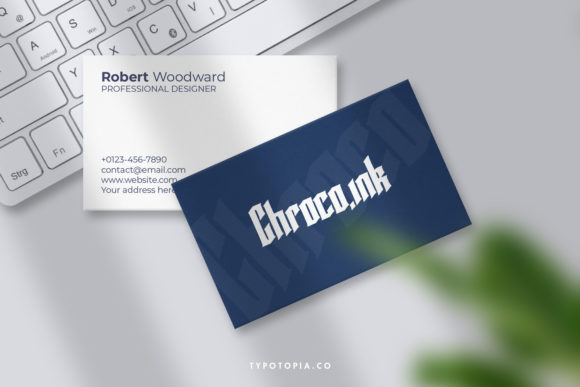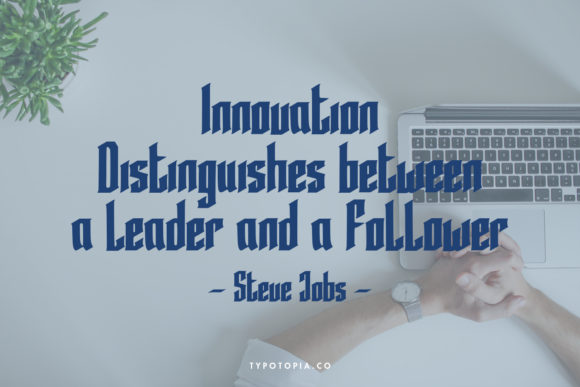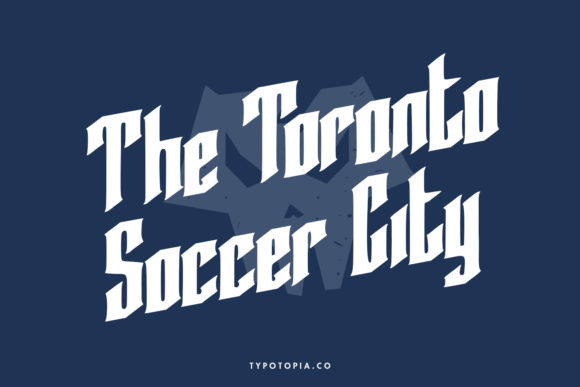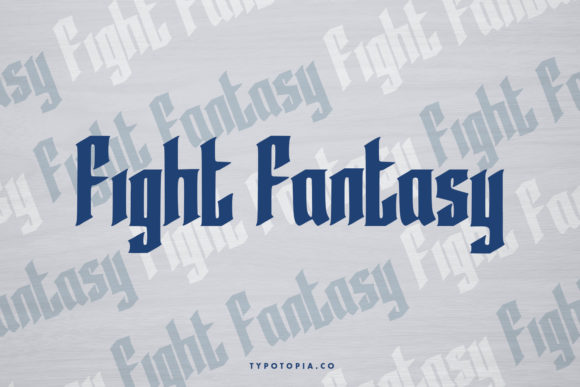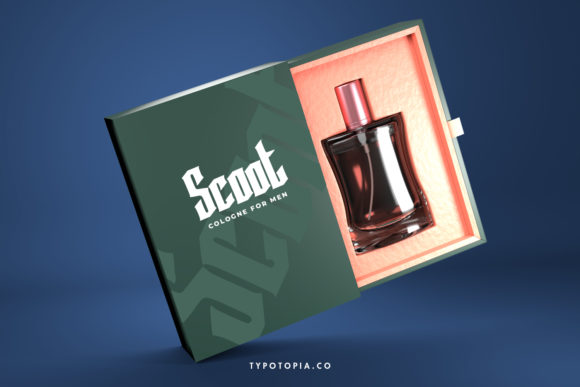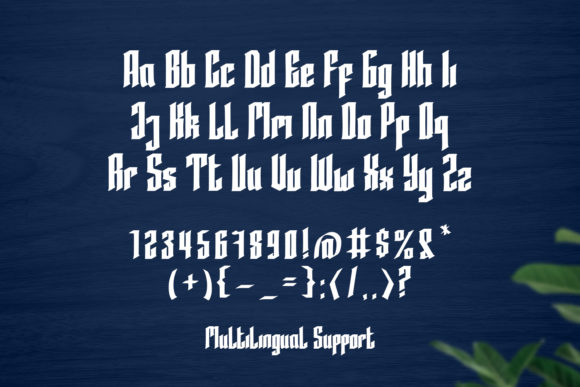
Unleash Your Creativity with Averoos Font
Have you ever been in the middle of a creative project, staring at a blank canvas, and suddenly a spark of inspiration hits you? The ideas start flowing, and you can’t wait to bring them to life. That’s exactly what happened to me when I first laid eyes on the Averoos Font. This bold and dramatic display font has the power to elevate your designs and make them truly stand out.
Averoos Font is more than just a font – it’s a statement piece. Designed to make a dramatic impact, it’s perfect for titles, headings, and any other element where you want to grab attention. Whether you’re a graphic designer, artist, or simply someone who loves to create, Averoos Font is a valuable addition to your toolkit. Its unique style and flair will add a touch of sophistication and elegance to your work, setting you apart from the crowd.
Averoos Font Key Features
- Font Family: Averoos is a unique, high-quality font family that includes multiple styles, such as Regular, Bold, Italic, and Bold Italic.
- Character Set: The font includes a comprehensive character set, including Latin, Cyrillic, and Greek alphabets, as well as various punctuation and symbol glyphs.
- Unique Characteristics: Averoos features a distinctive, hand-drawn aesthetic with a mix of geometric and organic elements, making it suitable for a wide range of design applications.
Averoos Font Review
I recently had the chance to work with the Averoos font, and I’m excited to share my honest review with you. Overall, I found Averoos to be a versatile and stylish font that can add a touch of sophistication to various design projects.
- ✨ Elegant and refined aesthetic: Averoos has a beautiful, modern feel that’s perfect for high-end branding, luxury products, or premium content.
- ✨ Wide range of styles: The font comes in multiple weights and styles, making it easy to find the perfect fit for your design needs.
- ✨ Excellent legibility: Averoos is highly legible, even at smaller font sizes, making it a great choice for body text and captions.
- ⚠️ Limited support for languages other than Latin: If you need to work with languages that use non-Latin scripts, you may find Averoos lacking in this regard.
- ⚠️ Not ideal for display-heavy designs: While Averoos is great for body text and captions, it may not be the best choice for designs that rely heavily on headings and titles.
Averoos is a solid choice for designers who need a high-quality, modern font for their projects. While it may have some limitations, its strengths make it a valuable addition to any font library.
Tips for Getting the Most Out of Averoos Font
To get the most out of Averoos Font, consider the following tips:
Use Averoos Font for headings and titles to add a touch of elegance and sophistication.
Combine Averoos Font with other fonts to create a unique and eye-catching design.
Experiment with different font sizes and styles to achieve the desired visual effect.
Averoos Font is ideal for:
Editorial and publishing design